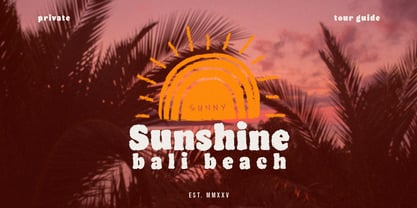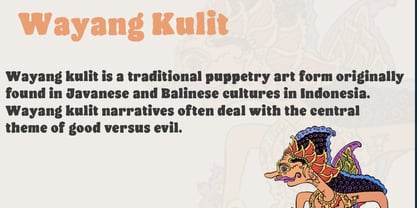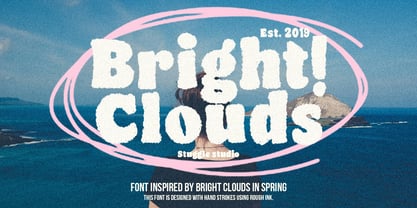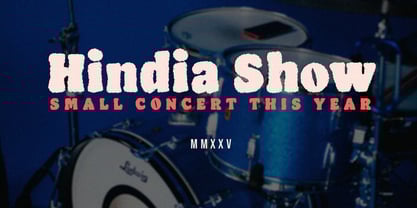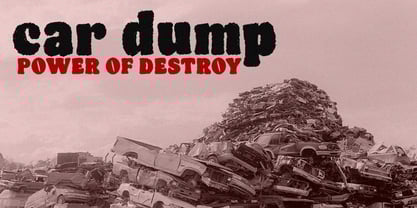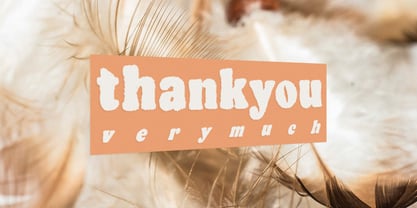
Bright Clouds
by Struggle Studio
Bright Clouds Font Family was designed by Andri Kurniawan and published by Struggle Studio. Bright Clouds contains 2 styles family package options.
Bright Clouds - Display Font
Bright Clouds is a captivating display font with a modern and playful design. Known for its bold, round letterforms, this font creates a cheerful and lighthearted impression, much like a clear sky adorned with soft white clouds. It's perfect for design projects that require a fun and energetic vibe, such as event posters, brand logos, large headlines, and graphic designs focused on visual appeal.
With balanced letter proportions and subtle accents, Bright Clouds offers a touch of elegance without compromising on clarity and readability. An ideal choice for various creative design applications, this font is versatile and can be seamlessly integrated into different visual styles.
Whether used for branding, advertising, or digital design, Bright Clouds provides a fresh and uplifting feel, making it a perfect fit for a young, dynamic audience.
Designers: Andri Kurniawan
Publisher: Struggle Studio
Foundry: Struggle Studio
Design Owner: Struggle Studio